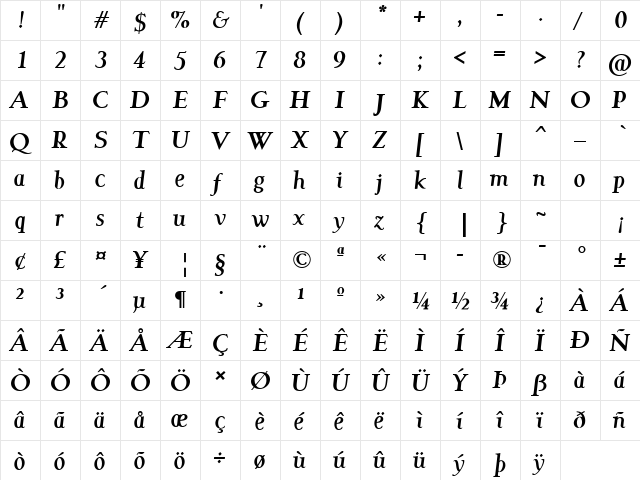
Garava Bold Italic
Design Context for Garava Typeface
Garava offers clean, dependable letterforms without strong stylistic allegiance, making it a practical choice for designers who need flexibility. The slanted form adds forward momentum and visual energy. The heavy weight commands attention and anchors typographic hierarchies.
Pro Tip: Try Garava for annotation and caption copy alongside an upright companion — the contrast in angle creates a dynamic but ordered typographic system.